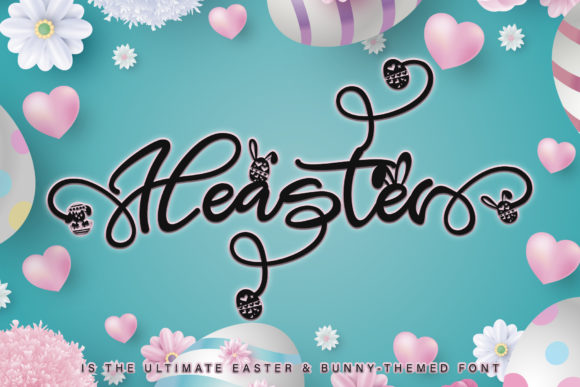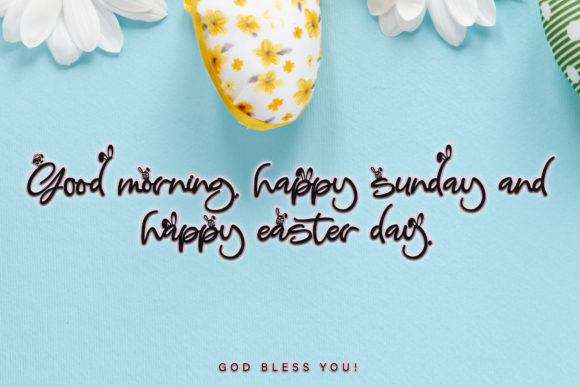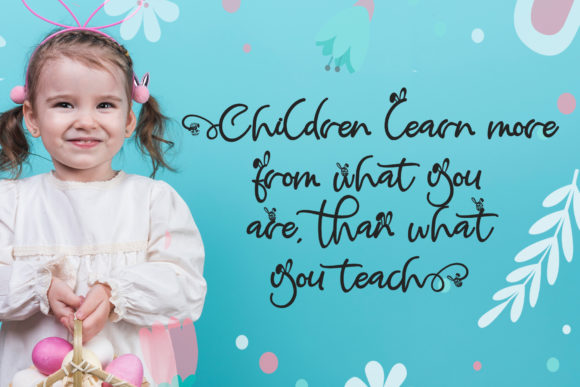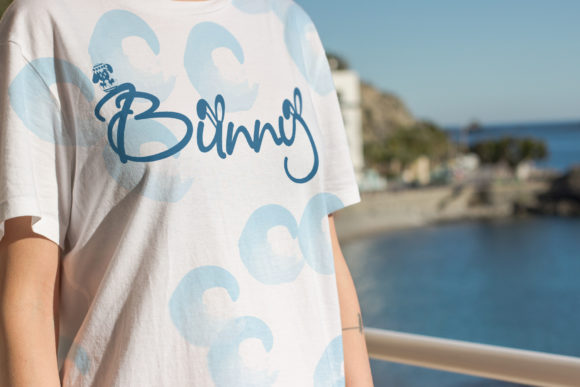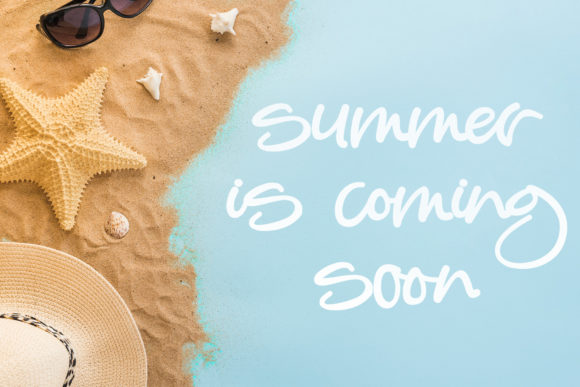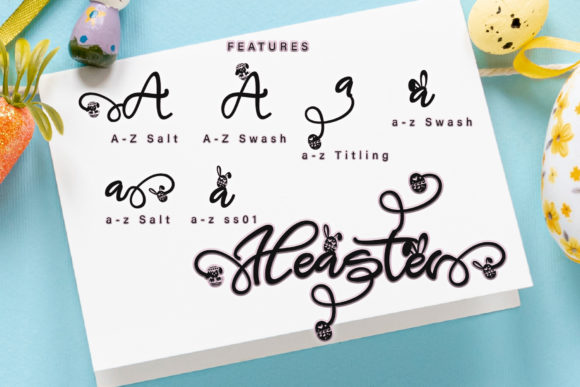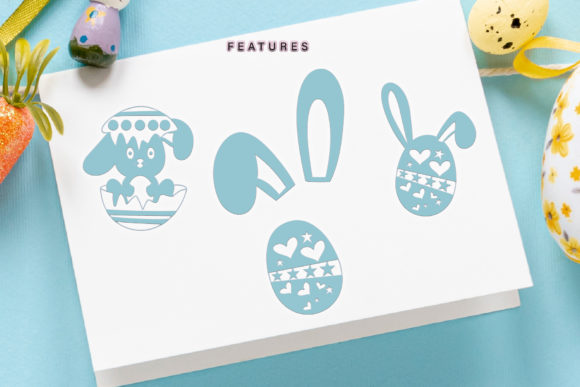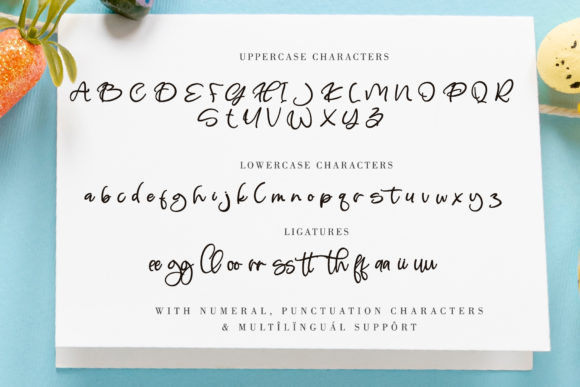
Heaster Font
About Heaster Font
Heaster is a cute and casual handwritten font with an incredibly friendly feel. It features gorgeous swashes and ligatures that make this script incredibly versatile. Whether you’re looking for fonts for Instagram or calligraphy scripts for DIY projects, Heaster will turn any creative idea into a true piece of art!